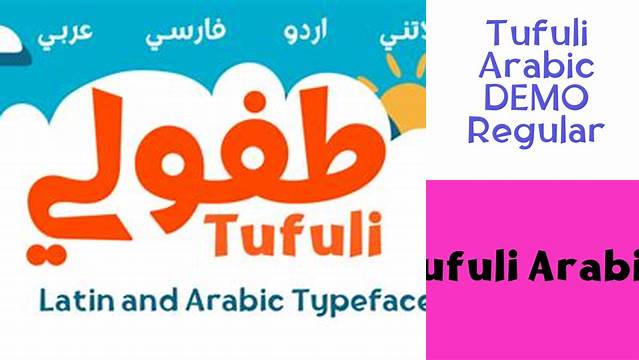
Hey there, design enthusiasts and font fanatics! Ready to dive into the world of beautiful Arabic typography? This guide is all about the Tufuli Arabic font, and how you can get a free download! We'll explore everything from its unique characteristics to where you can snag this gem without spending a dime. So, buckle up, because we're about to embark on a typographic adventure! Tufuli Arabic font free download is something a lot of designers are looking for, and we're here to help you find it.
H2: Unveiling the Elegance: What Makes Tufuli Font Special?
Alright, let's talk about what makes Tufuli Arabic font stand out. First off, this isn't your average, run-of-the-mill font. Tufuli boasts a captivating blend of modern and traditional Arabic calligraphy. Its design is inspired by the flowing scripts seen in classic Arabic art, but with a contemporary twist that makes it incredibly versatile. It's like the perfect fusion of old-world charm and new-age coolness. The curves are graceful, the strokes are deliberate, and the overall aesthetic is simply stunning. The font's legibility is also top-notch, which is a crucial factor. You want a font that not only looks good but is also easy on the eyes, right? Tufuli excels in both departments. Tufuli Arabic font free download offers a unique opportunity to explore this elegant style. The font is perfect for various projects. Imagine using it for everything from creating eye-catching headlines to crafting elegant invitations. Think about how it would look on a poster, a website, or even your social media graphics. The possibilities are endless! One of the key features of Tufuli is its stylistic versatility. It can adapt to many design needs. If you are working on a design project that requires a touch of sophistication, Tufuli is your answer. Whether you're designing a logo, a website banner, or even a simple greeting card, Tufuli will bring a touch of class and artistry. The design of the font allows for creative freedom.
Now, the beauty of Tufuli isn't just skin deep. The font family often includes a range of weights and styles. This means you get to play with different looks and feels. Want a bolder statement? Go with the heavier weight. Need something more delicate and subtle? Opt for the lighter version. This flexibility allows designers to create variations. You can customize the font to match their projects. The font’s design reflects the beauty of the Arabic language. This font allows the user to appreciate and celebrate the beauty of the Arabic script. This font will help your design projects stand out. Tufuli Arabic font free download is an excellent way to give your design a unique look.